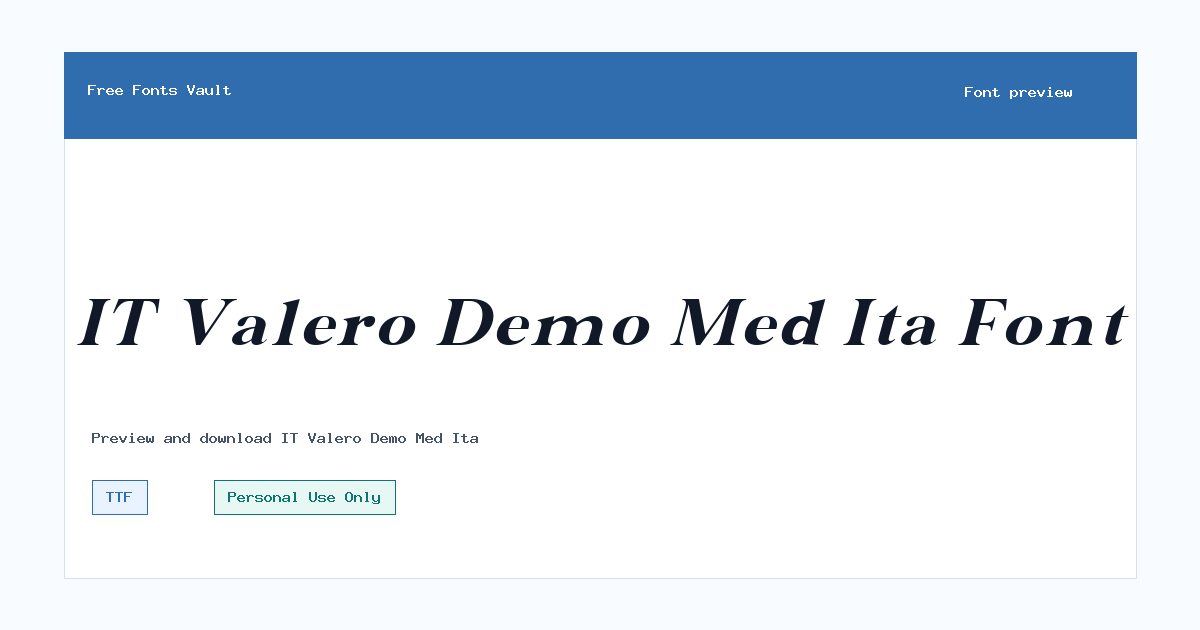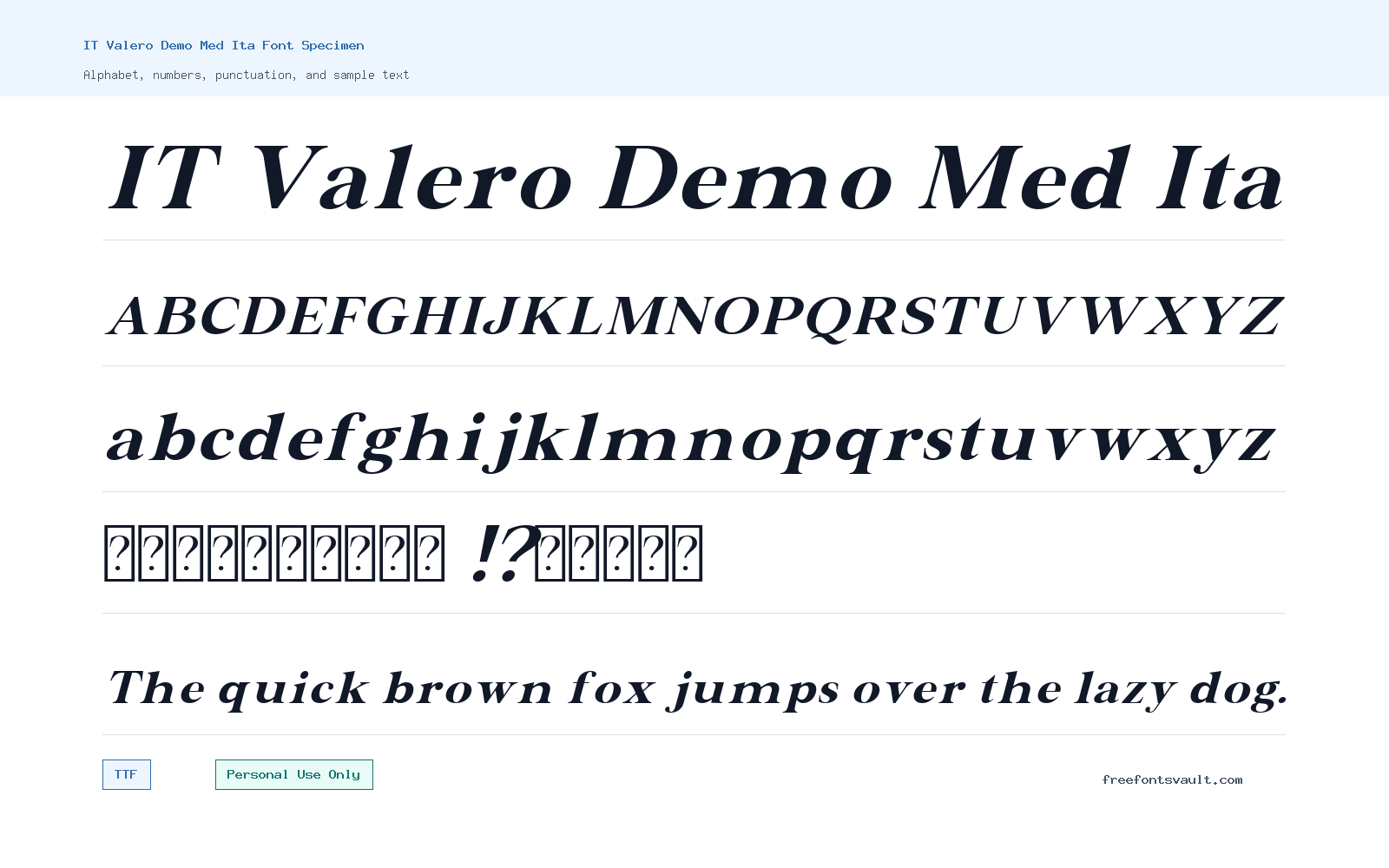
IT Valero Demo Med Ita
- Designer Indotype
- Foundry Indotype Foundry
IT Valero Demo Med Ita font.
IT Valero Demo Med Ita is a medium-weight italic serif demo font from Indotype, intended for personal-use projects and design testing.
About IT Valero Demo Med Ita Font
IT Valero Demo Med Ita has the controlled rhythm of a serif typeface with the added movement of an italic style. Its medium weight gives the letters enough presence for display use, while the slant adds a more refined, expressive tone than an upright serif. Because this file is the Medium Italic style, it is best judged as a supporting or emphasis face rather than as a complete text family. Try it in the preview box with names, short headings, pull quotes, invitation lines, and brand-style phrases to see how the angle, spacing, and stroke contrast behave at different sizes.
This font can work well when you want a polished serif accent without using a heavy headline face. It is a practical choice for personal poster drafts, logo experiments, editorial mockups, web hero text, packaging concepts, social graphics, and portfolio studies. For logo work, test the exact wordmark at large size and check whether the italic shapes stay balanced across all letters. For posters and web mockups, keep the copy short so the italic style feels intentional rather than tiring. If you plan to pair it with another font, use a quiet sans serif or a plain upright serif for body text, then reserve IT Valero Demo Med Ita for emphasis, titles, names, captions, or highlighted phrases.
- Medium-weight italic serif style suited to short display text and emphasis.
- Useful for previewing serif italic styling in logos, posters, editorial layouts, web mockups, and presentation concepts.
- Single available style, so it is better for accents than for building a full multi-weight typography system.
- Personal poster designs and title treatments
- Logo and wordmark experiments
- Editorial mockups, pull quotes, and magazine-style headings
- Website hero text and landing page concepts
- Invitation drafts, name cards, and elegant short phrases
- Packaging or label concept work for personal presentation
- Social media graphics where the text is brief and prominent
What kind of font is IT Valero Demo Med Ita?
It is a medium-weight italic serif demo font. The italic style makes it more suitable for emphasis, titles, quotes, and display text than for long body copy.
Who designed IT Valero Demo Med Ita?
The designer is listed as Indotype, and the foundry is listed as Indotype Foundry.
Is this a complete font family?
What fonts pair well with IT Valero Demo Med Ita?
Pair it with a clean sans serif for body text, menus, and captions, or with a restrained upright serif if you want a more traditional editorial look. Keep the italic style for emphasis so the design stays readable.